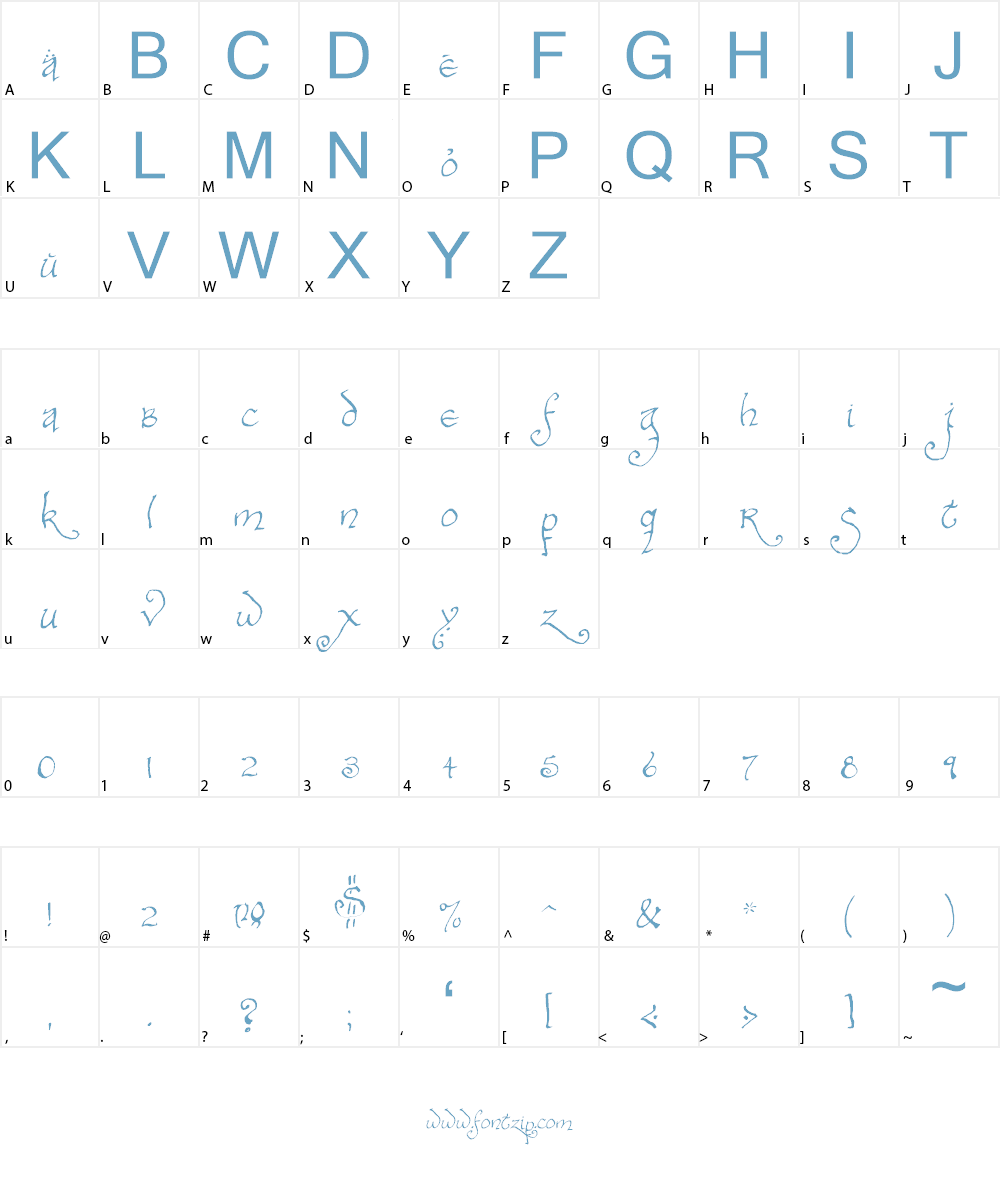
This font was created after studying still frames of Bilbo's Red Book in the movie. The correct dots are there - you just need to capital the vowels.